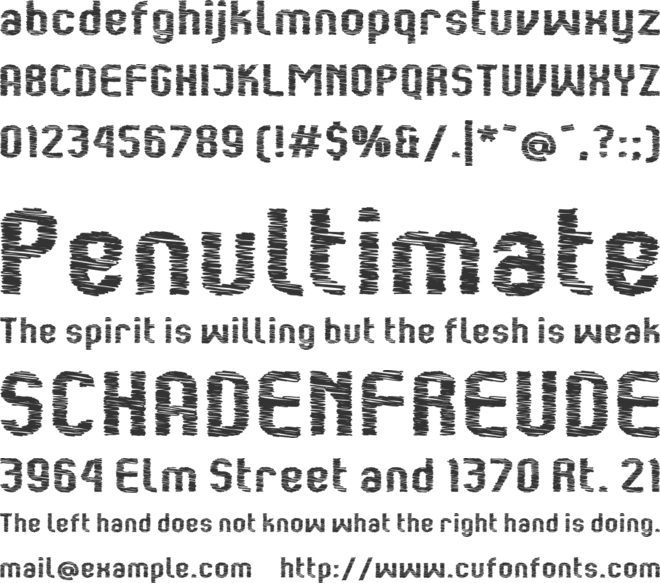
Kumba Font Family
Kumba Scrawl is an authentic and quirky sans serif font. Incredibly friendly, this font will brighten up any of the design projects you wish to create!